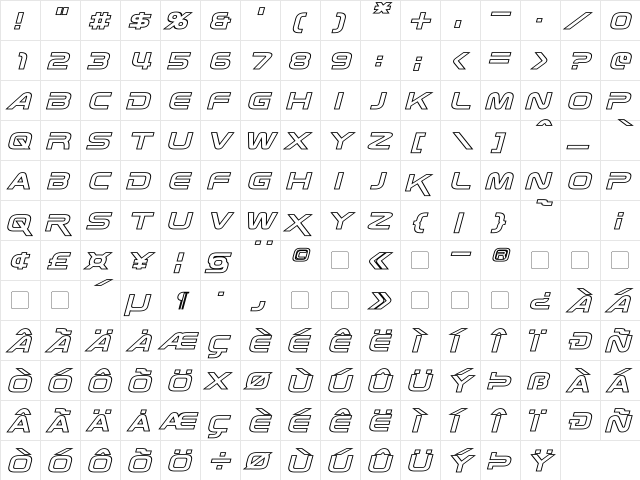
Zebulon Hollow Italic
| Designer | Neale Davidson |
Design Context for Zebulon Hollow Typeface
Zebulon Hollow takes a measured approach to typography — its balanced proportions and neutral character make it a reliable workhorse for both digital and print work. Its italic angle brings a sense of urgency and motion to the letterforms.
Pro Tip: Try Zebulon Hollow for annotation and caption copy alongside an upright companion — the contrast in angle creates a dynamic but ordered typographic system.